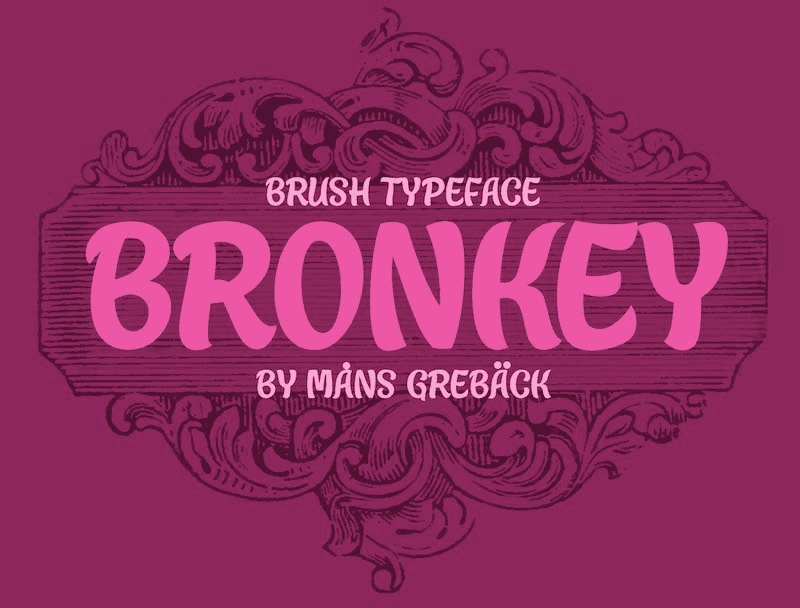
Font name: | Bronkey |
NOTE: This font is for PERSONAL USE ONLY! To purchase a commercial license, visit: http://mn.sg/bronkey In a quirky cartoon style, Bronkey is a fun and funky font with a happy swing and optimistic letterforms. For questions, please visit www.mansgreback.com/faq |